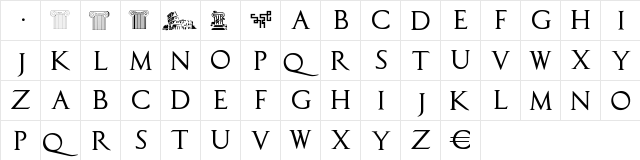
CapitalisTypOasis Regular
Design Context for CapitalisTypOasis Typeface
CapitalisTypOasis is a composed and adaptable typeface that performs quietly and consistently across a wide range of design contexts.